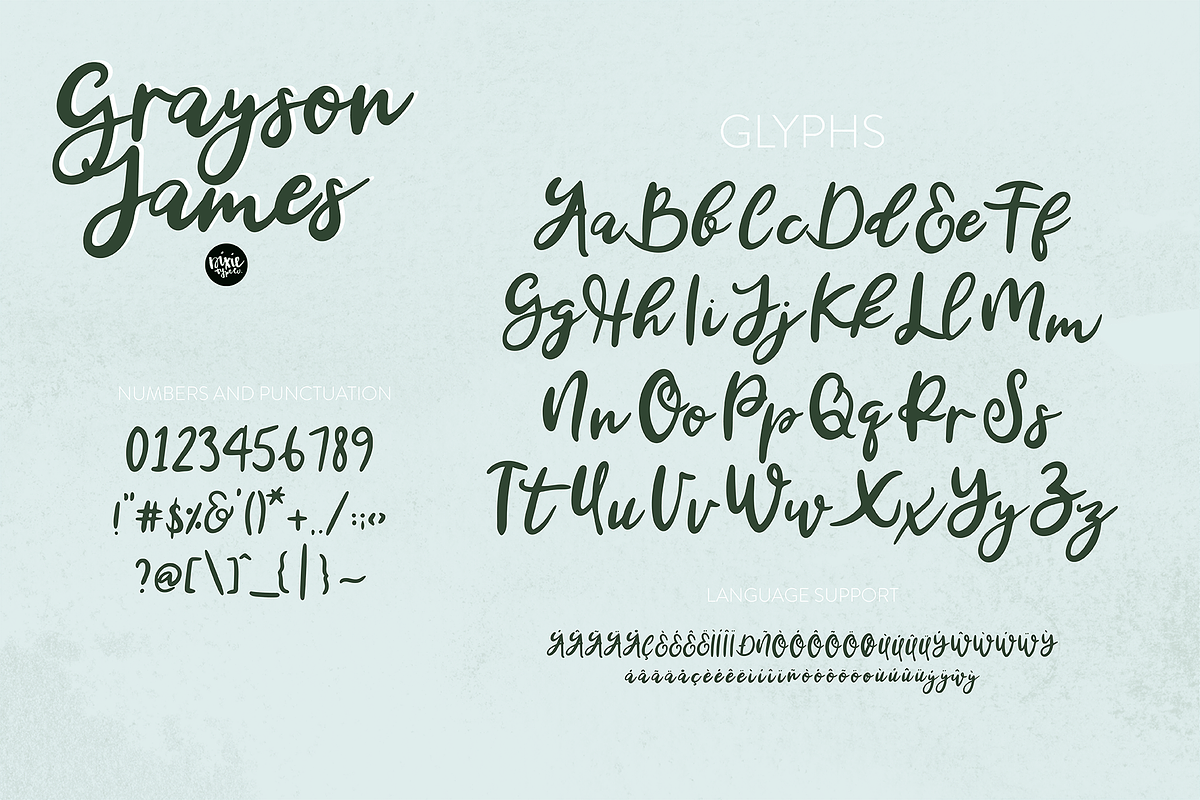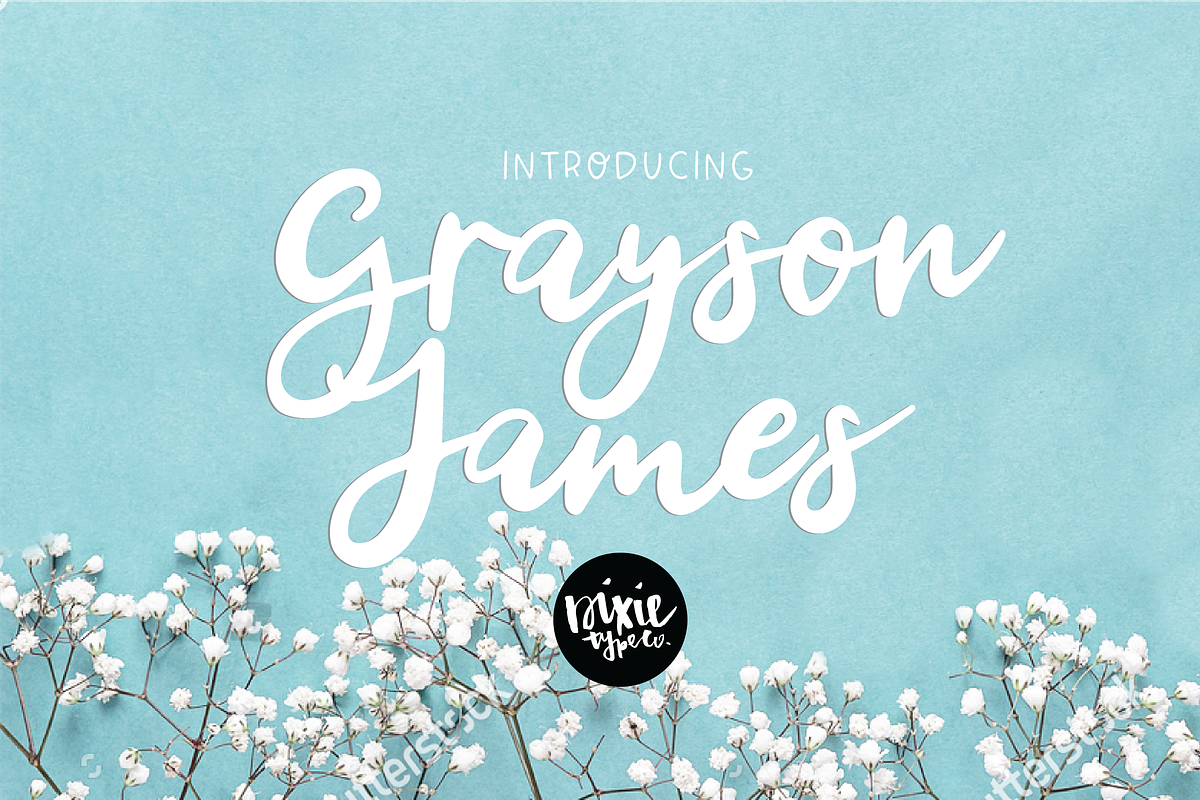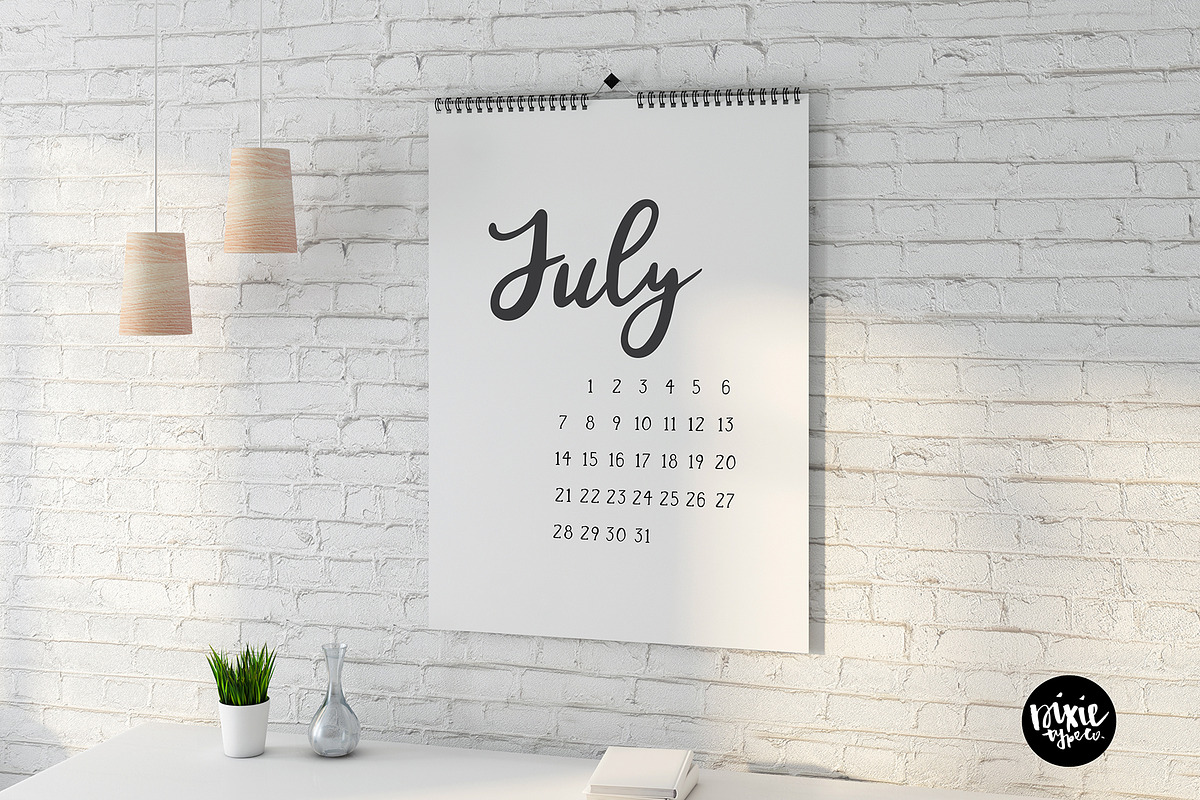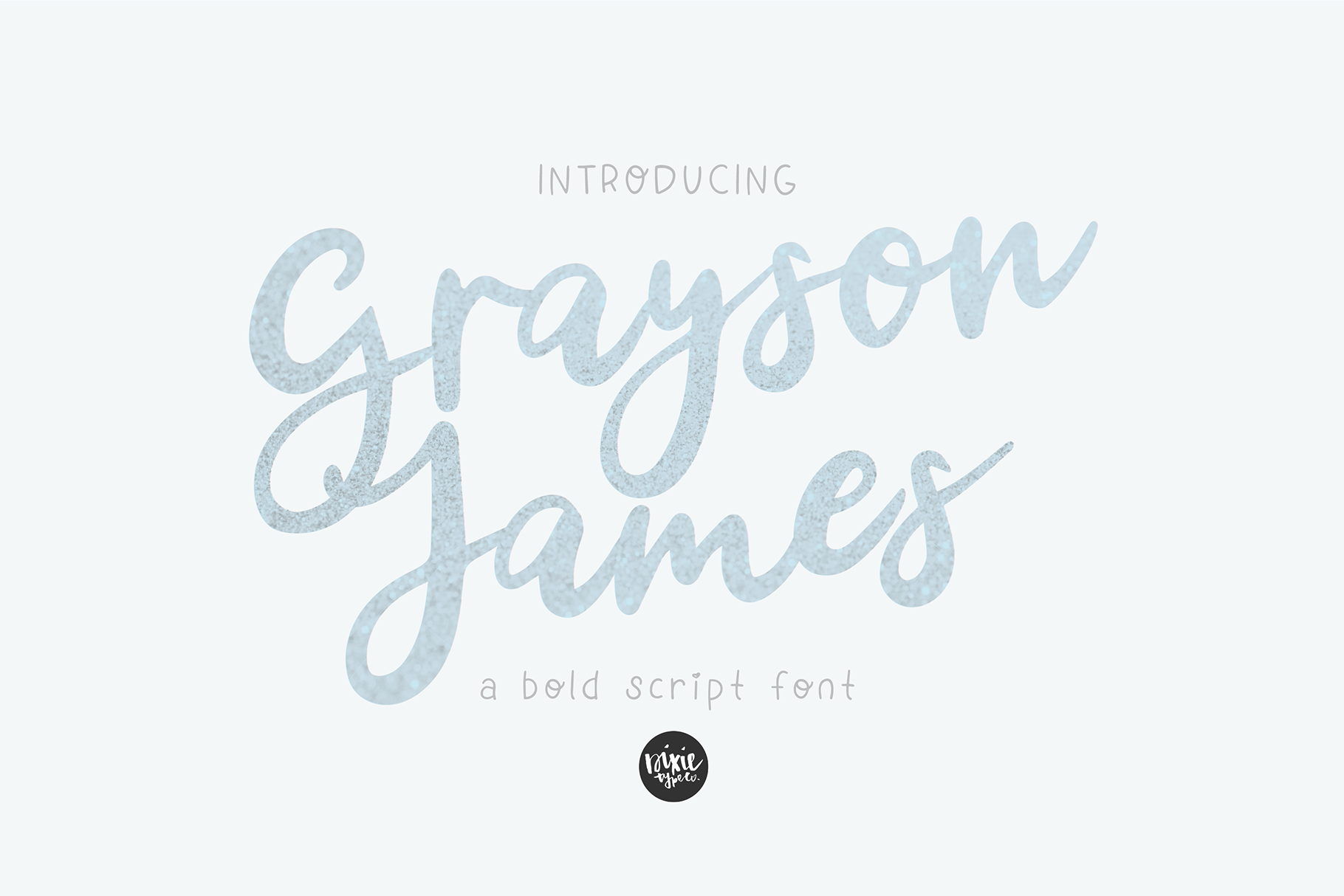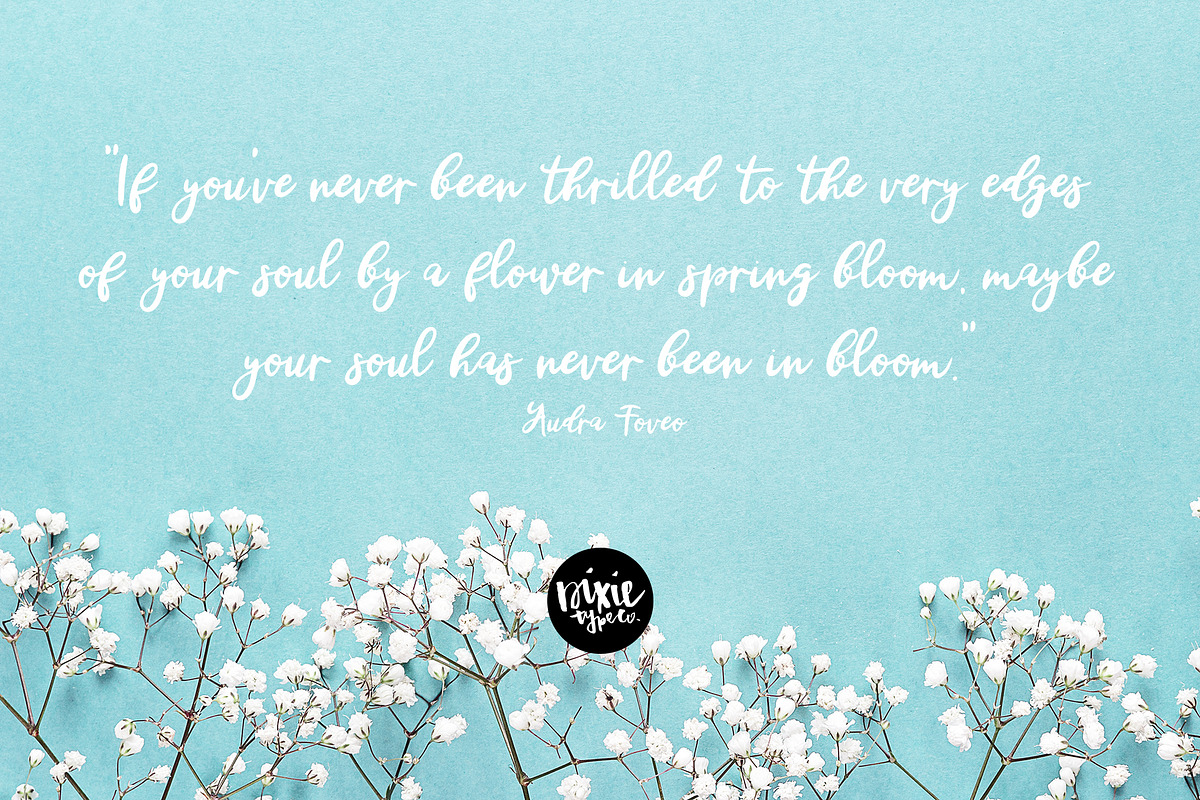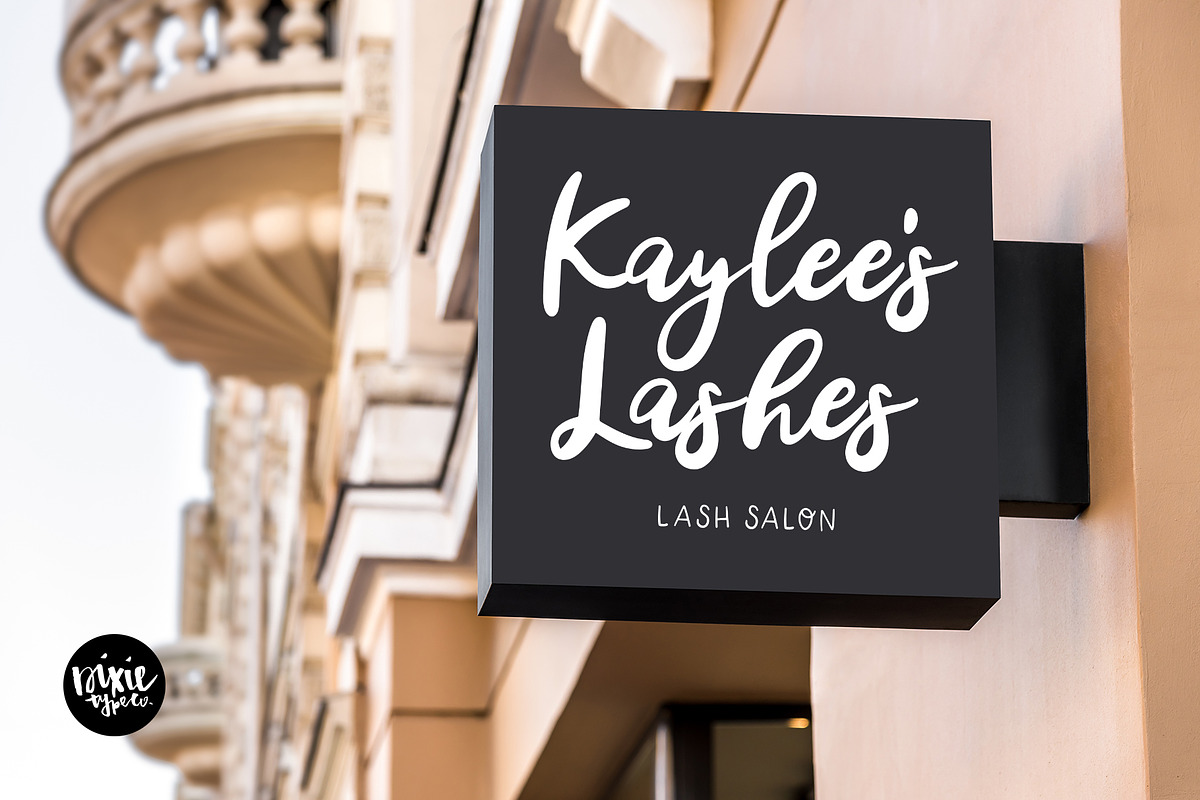
GRAYSON JAMES a Bold Script Font
Grayson James (DTC Grayson James)
Grayson is a bold italic, feminine brush script font. This font includes basic punctuation, numbers, and language support in the following characters: ÁÂÃÄÅÇÐÈÉÊËÌ Í Î Ï ÑØÒÓÔÕÖÙÜÚÛẂŴẄẀÝỲáâãäåçèéêëì í î ï ñøòóôõöùüúûŵýỳ